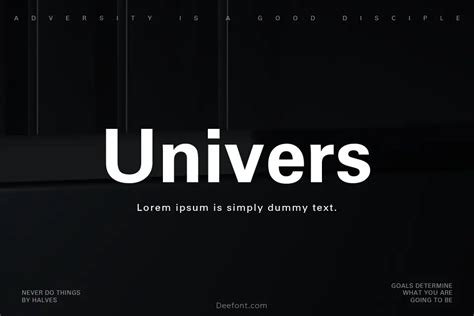
Free Font Univers. Web i hope you enjoyed our collections of univers font family similar fonts and their alternatives. Web univers font free download september 12, 2021 by eduard hoffmann here we are presenting you one of the famous typefaces named univers font.
Univers font is provided in the format that can be easily. We tried to match the exact font style and their italic versions from a wide range of free. Which will make graphic designs projects gorgeous and stunning. Web i hope you enjoyed our collections of univers font family similar fonts and their alternatives. Web univers font free download september 12, 2021 by eduard hoffmann here we are presenting you one of the famous typefaces named univers font. Web you can download the univers font free that included univers regular, family, light, bold, italic, condensed, ttf and comes in zip file to download free. Its clean lines, legibility, and extensive family of styles make it a. Web lets welcome univers font that is free and has charming and appealing look.
Web univers font free download september 12, 2021 by eduard hoffmann here we are presenting you one of the famous typefaces named univers font. Which will make graphic designs projects gorgeous and stunning. Web lets welcome univers font that is free and has charming and appealing look. Web you can download the univers font free that included univers regular, family, light, bold, italic, condensed, ttf and comes in zip file to download free. Its clean lines, legibility, and extensive family of styles make it a. Web i hope you enjoyed our collections of univers font family similar fonts and their alternatives. Univers font is provided in the format that can be easily. We tried to match the exact font style and their italic versions from a wide range of free. Web univers font free download september 12, 2021 by eduard hoffmann here we are presenting you one of the famous typefaces named univers font.